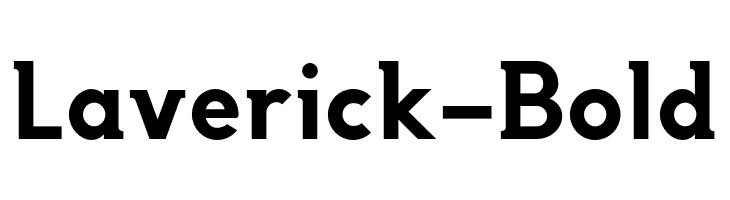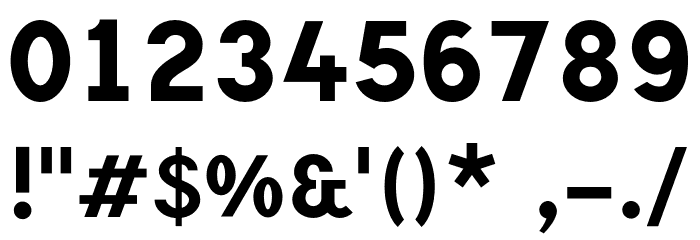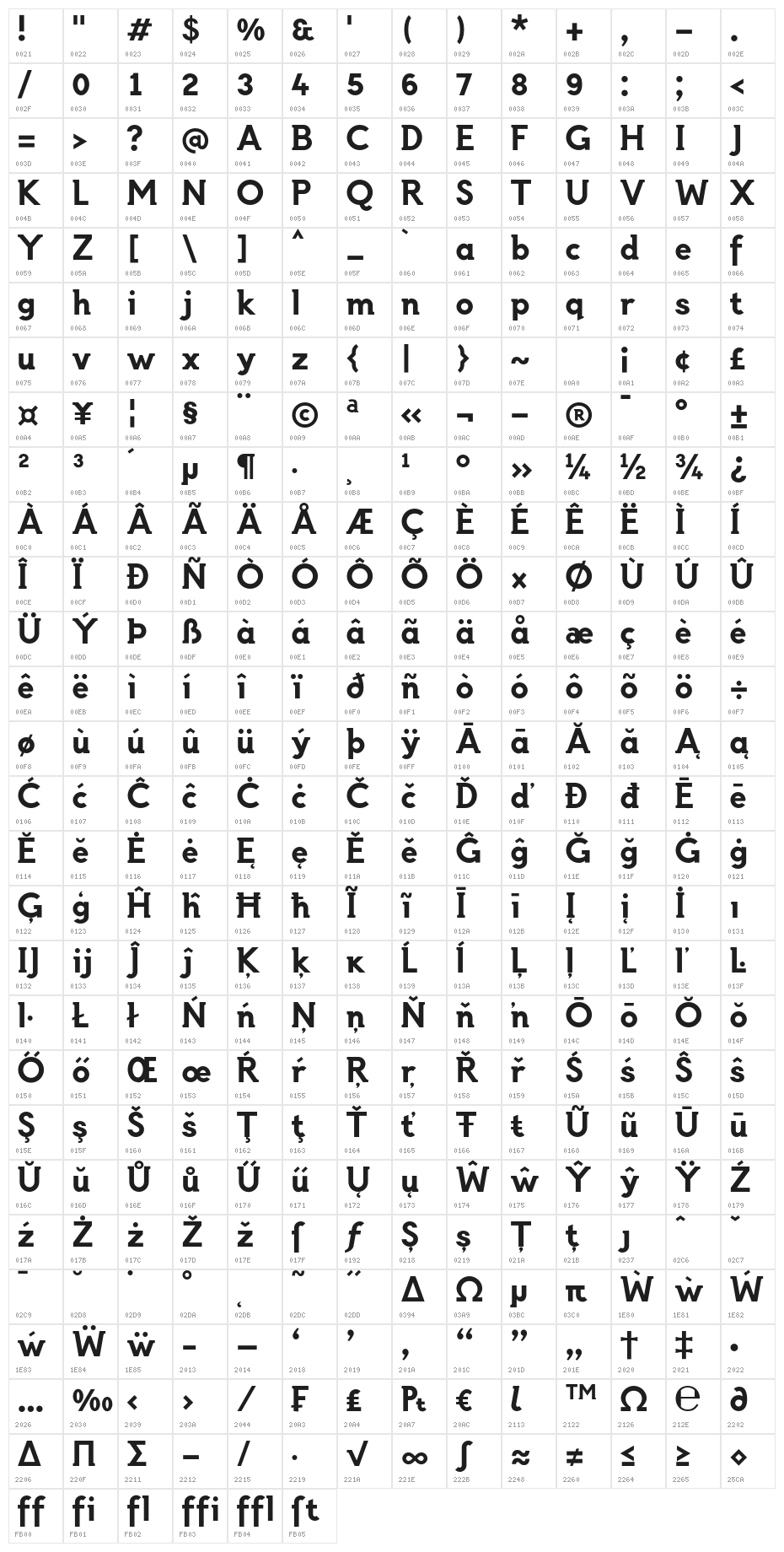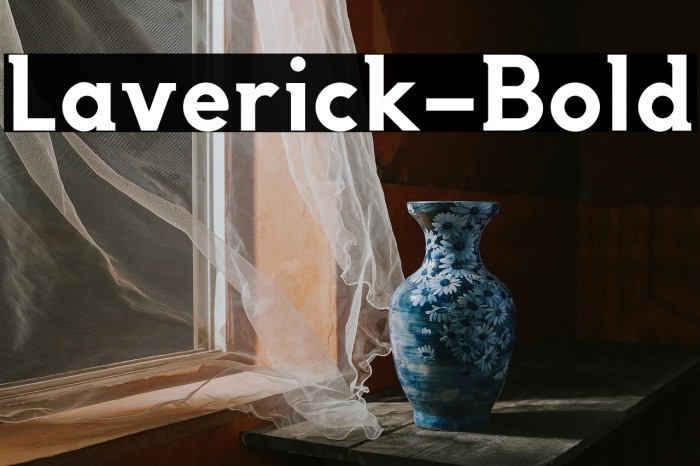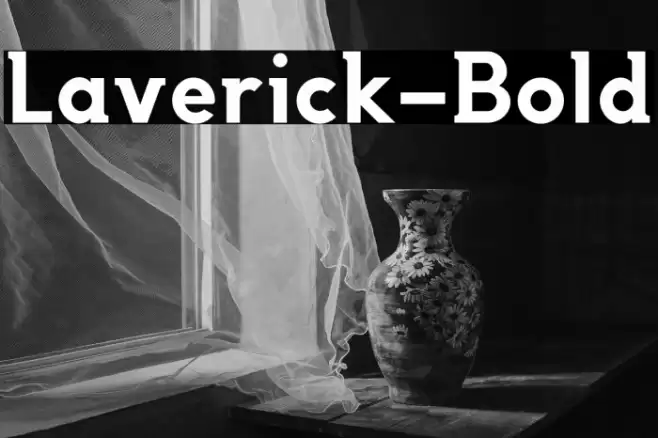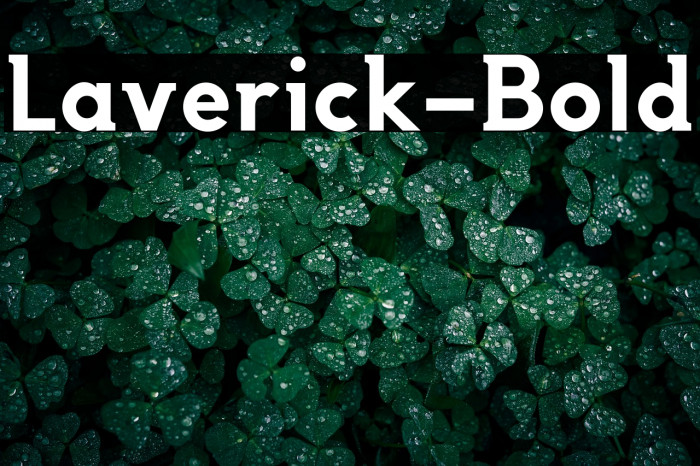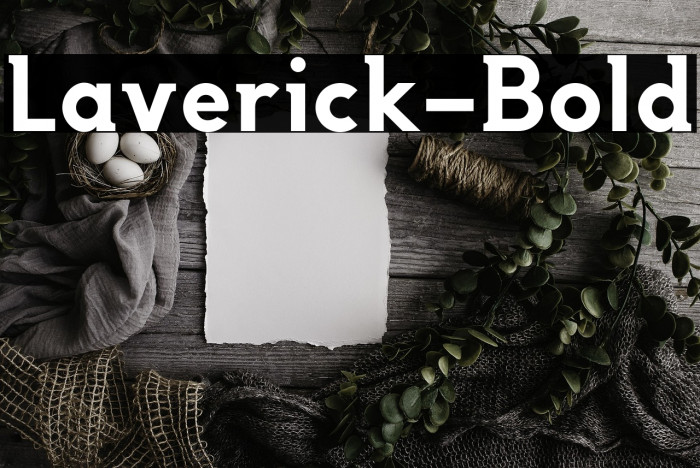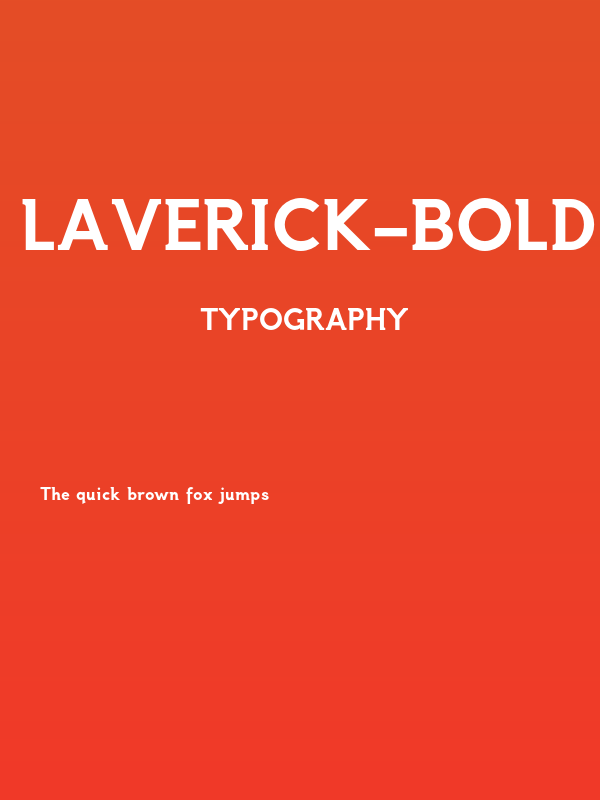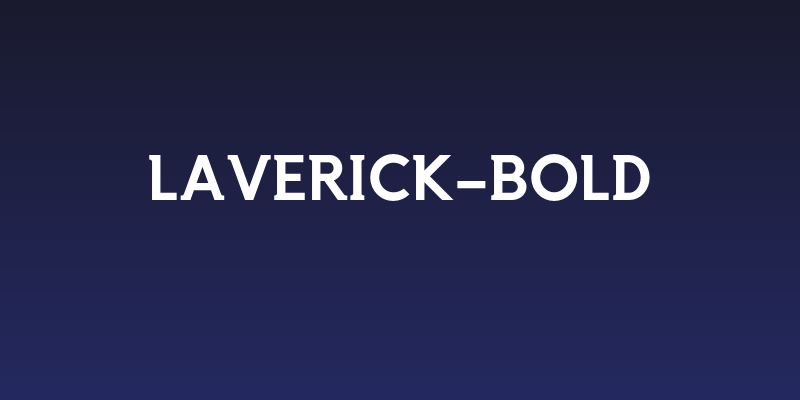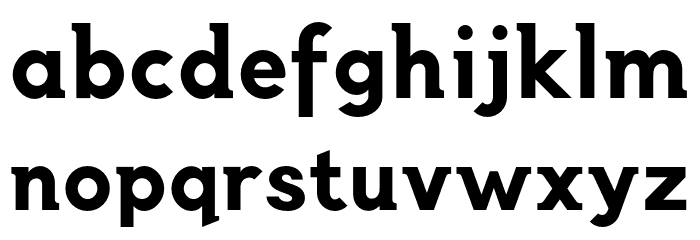
Laverick-Bold Font
Laverick-Bold Description
This font exhibits a bold and robust style with clean, geometric lines and a modern aesthetic. The uppercase letters are strong and commanding, while the lowercase letters maintain a consistent weight and structure, offering a harmonious balance. The numerals are clear and legible, designed to stand out with their bold presence. Special characters are crafted with precision, ensuring they integrate seamlessly with the rest of the typeface. The overall design is versatile, making it suitable for a variety of applications where a strong visual impact is desired.
| Proposed Projects | Ideal for branding, headlines, posters, and any design requiring a strong visual impact. |